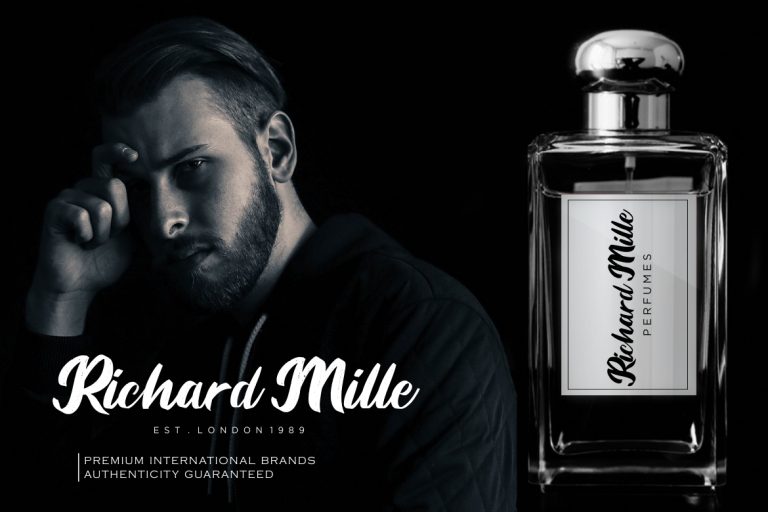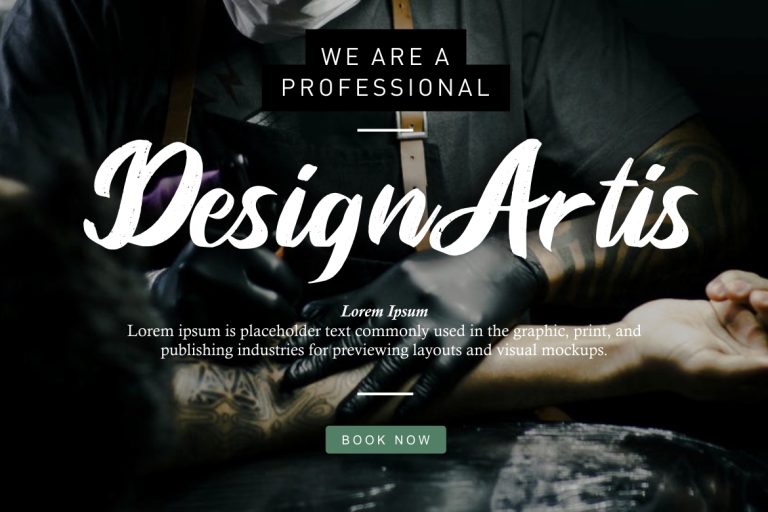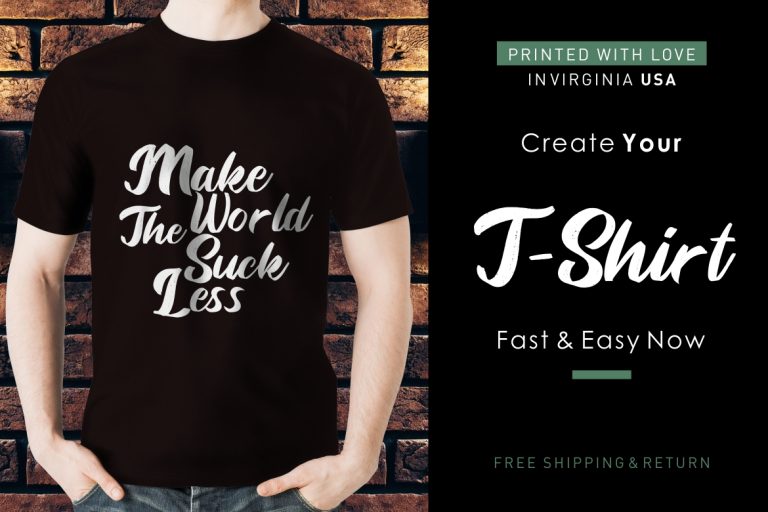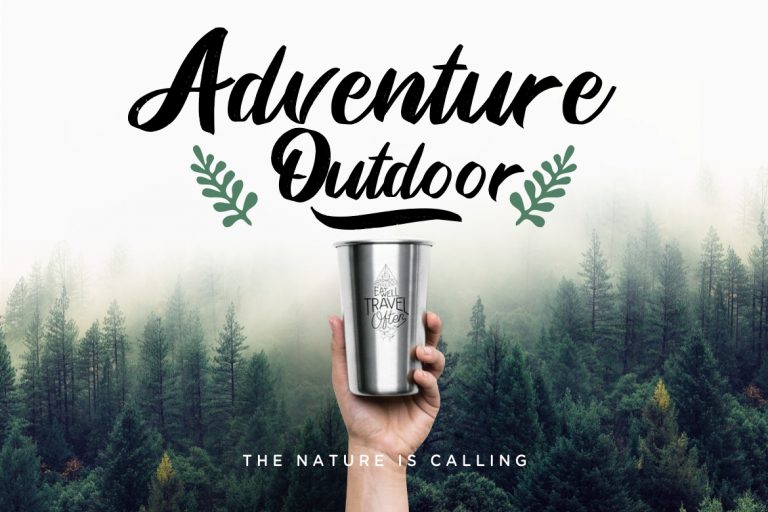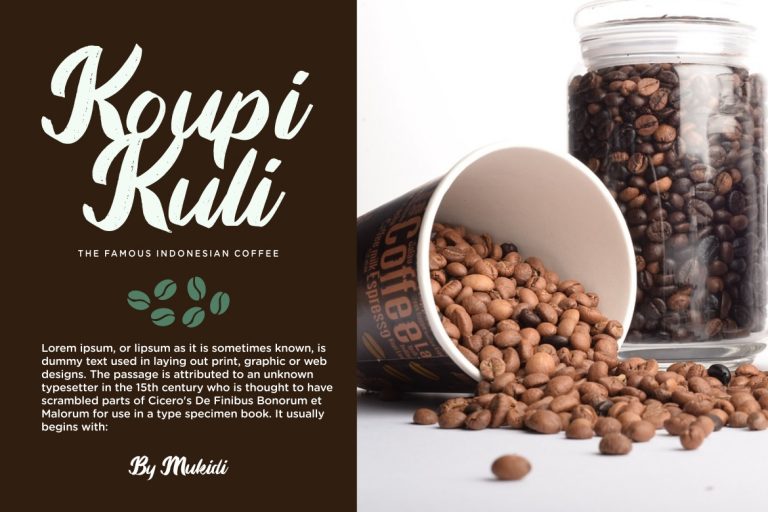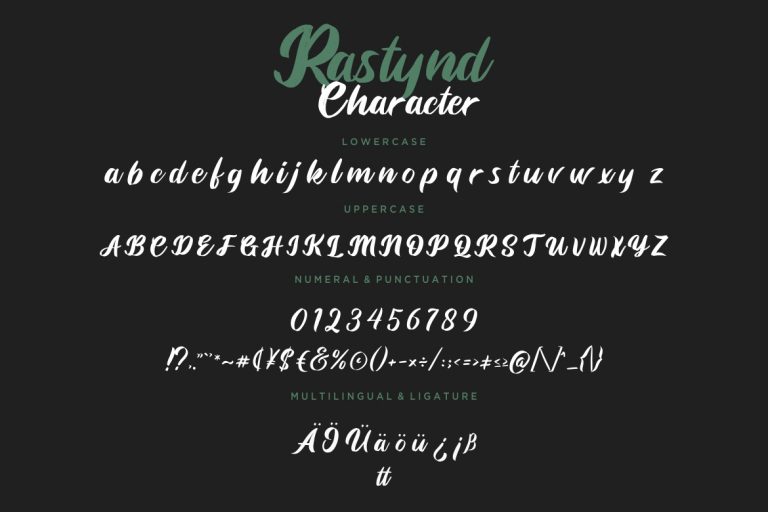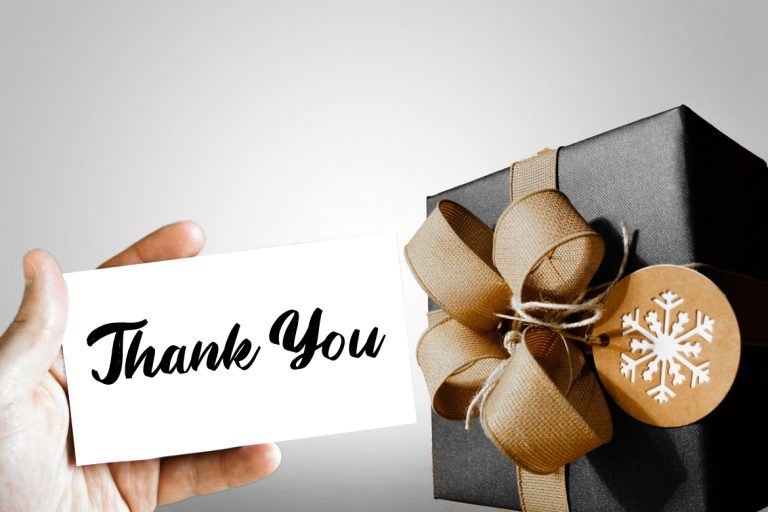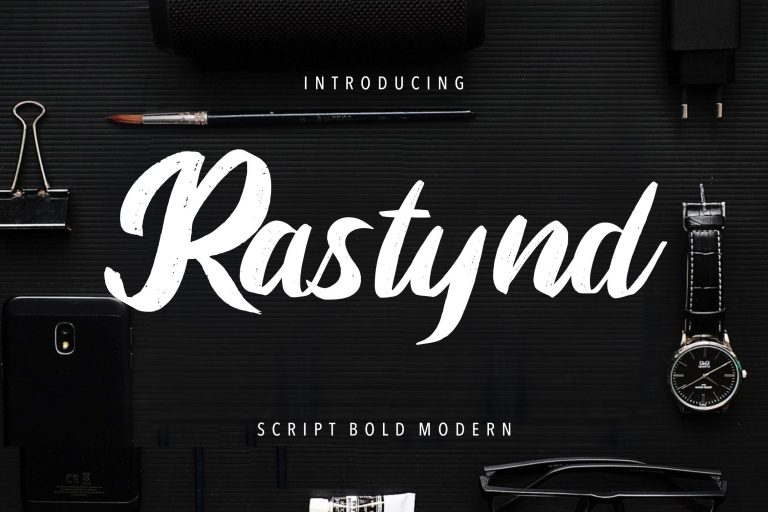
Rastynd is bold script modern font with thick and brush style will make your branding more bright.
Rastynd is perfect for branding projects, logo, wedding designs, social media posts, advertisements, product packaging, product designs, label, photography, watermark, invitation, stationery and any projects that need handwriting taste.
- Fonts include multilingual support for; ä ö ü Ä Ö Ü ß ¿ ¡
Rastynd Script Bold Modern